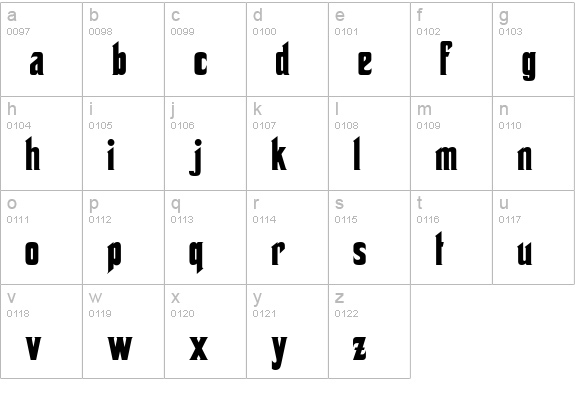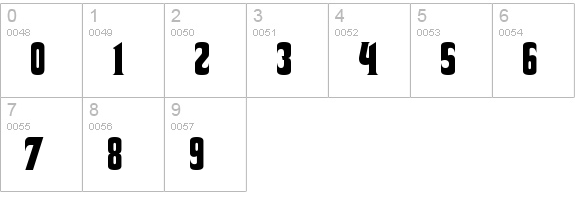
Corleone Due Font Details
Corleone Due font is a stunning display font that exudes elegance and sophistication. Its sleek and stylish design is perfect for adding a touch of class to any project. The font features clean lines and sharp edges, giving it a modern and contemporary look. Corleone Due font is not only visually appealing, but it is also incredibly versatile. Whether you're designing a logo, creating a poster, or crafting a website, this font will elevate your design to new heights. Its bold and impactful letterforms demand attention and make a lasting impression. What sets Corleone Due font apart is that it is free to download at FontsMarket.com. Yes, you read that right – this high-quality font is available to everyone without any cost. So you can bring your design visions to life without breaking the bank. Downloading Corleone Due font is a breeze. Simply visit FontsMarket.com and easily access this incredible font. Whether you're a professional designer or a hobbyist, this font is a must-have in your collection. So why wait? Take advantage of the opportunity to enhance your designs with the stunning Corleone Due font. Download it for free at FontsMarket.com and let your creativity flow.